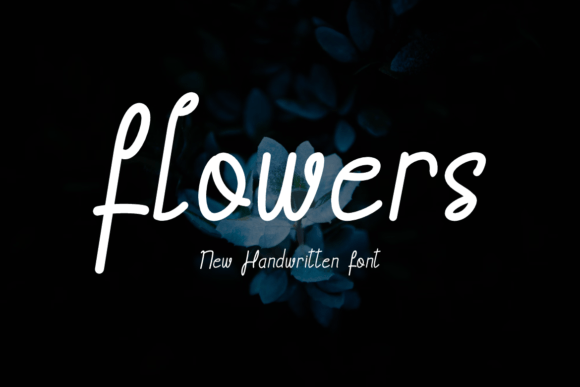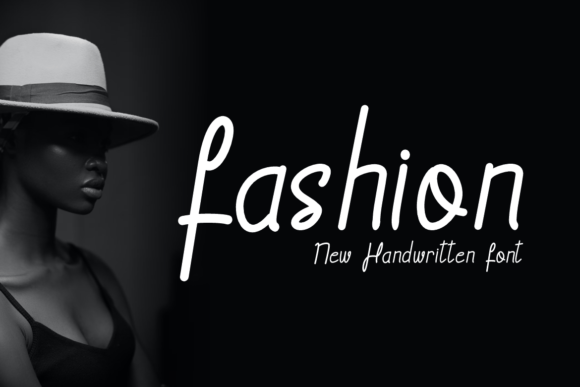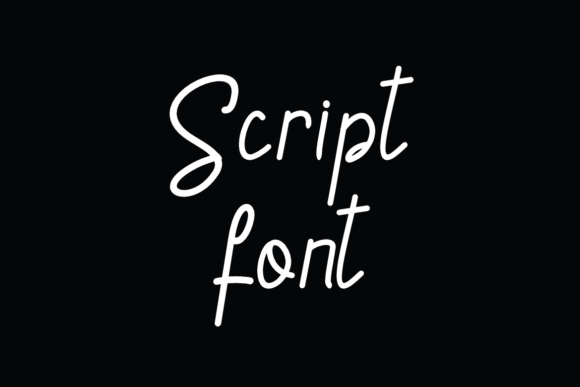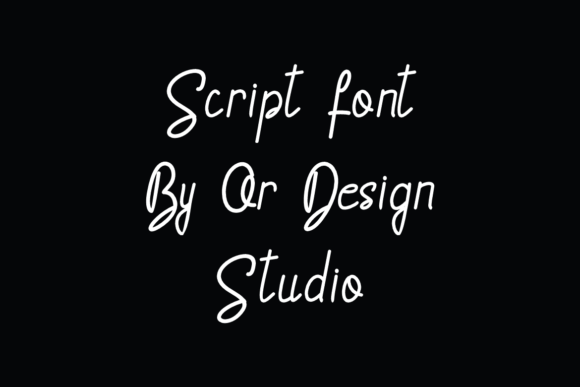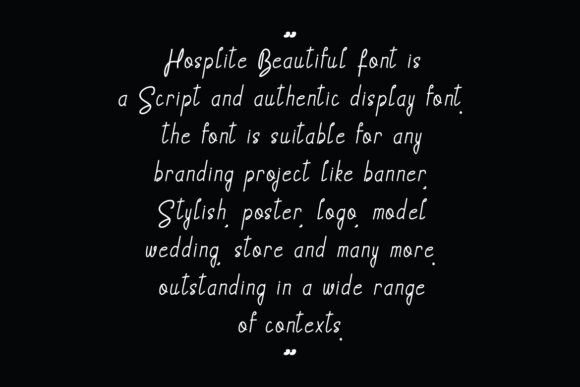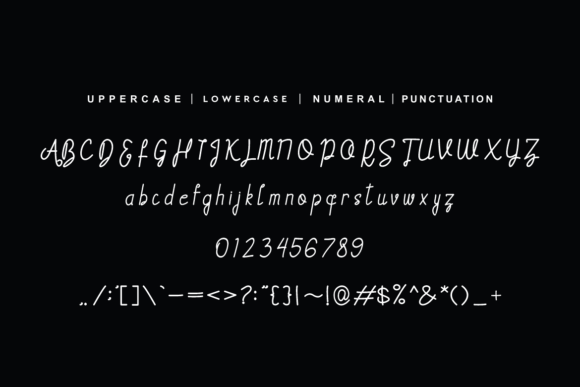
Introduction to Hosplite Beautiful Font
Hosplite Beautiful is a lovely and timeless handwritten font.
Key Features of Hosplite Beautiful Font
Why Choose Hosplite Beautiful Font?
Hosplite Beautiful Font offers exceptional quality and versatility, making it a valuable addition to your design toolkit. Whether you’re creating for personal projects or commercial use, Hosplite Beautiful Font delivers professional results.